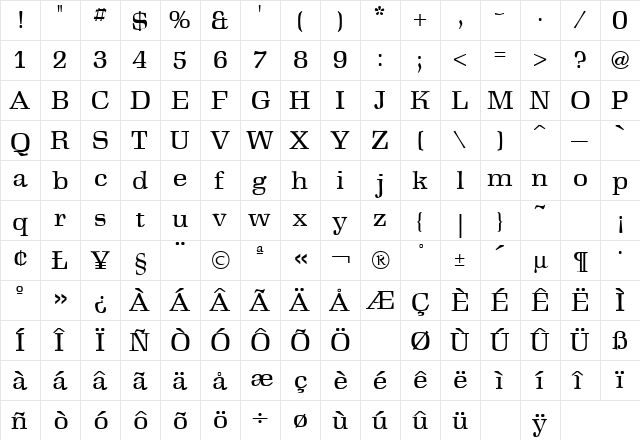
Antikva Margaret Regular
Design Context for Antikva Margaret Typeface
Antikva Margaret offers clean, dependable letterforms without strong stylistic allegiance, making it a practical choice for designers who need flexibility.